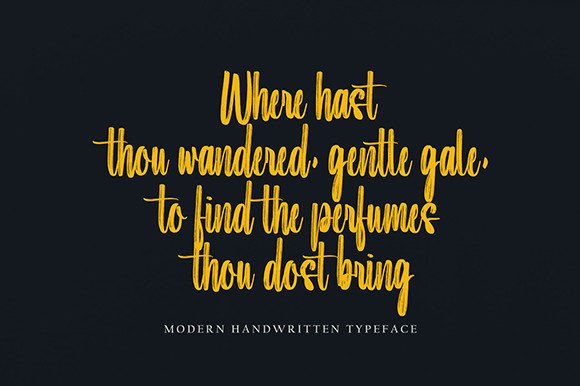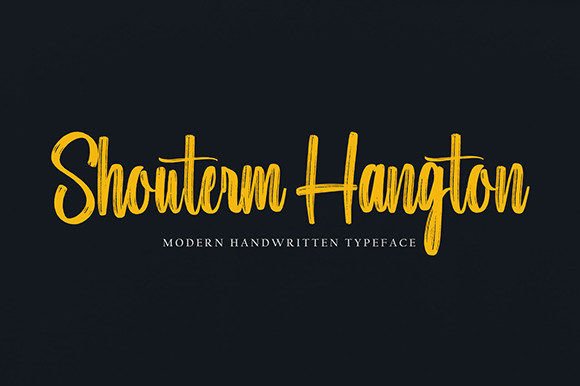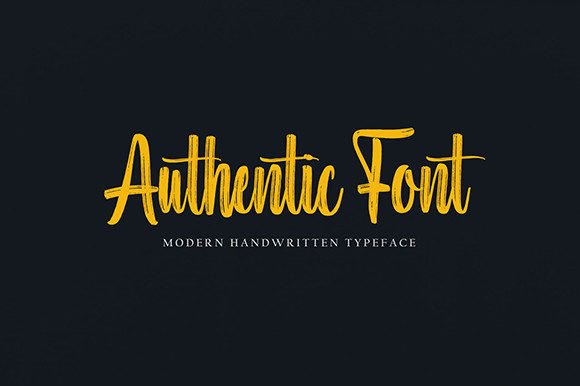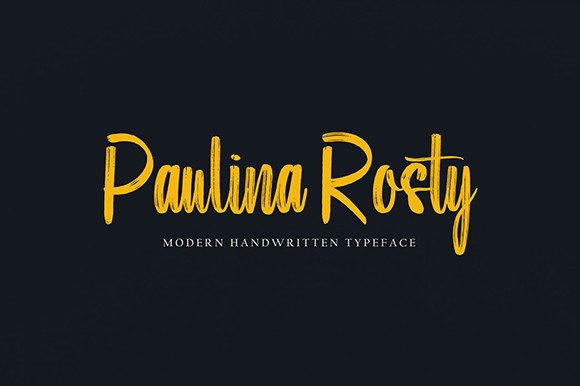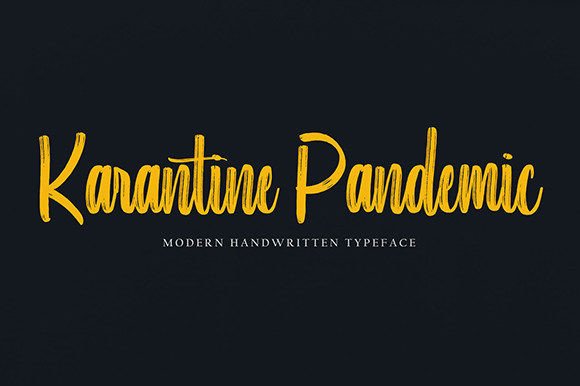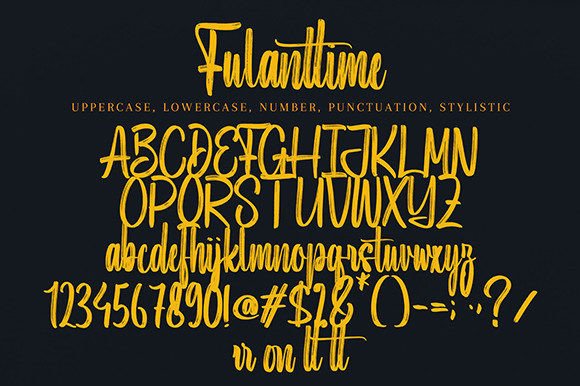
The Designer’s Delight: Exploring the Elegance of Fulanttime Font
I’ll never forget the time I was working on a fashion branding project, and my client asked me to create a logo that exuded elegance and sophistication. I spent hours scouring the internet for the perfect font, but nothing seemed quite right. That was until I stumbled upon Fulanttime Font. ✨
This stylish and incredibly elegant handwritten font has been a game-changer for my design work. Defined by smooth curves, Fulanttime Font is perfect for fashion branding or editorial designs. In this article, I’ll share my experience with this beautiful font, its features, and how to make the most of it in your designs.
An Honest Review of Fulanttime Font
• ✨ Elegant and sophisticated: Fulanttime Font is perfect for high-end fashion branding or editorial designs.
• ✅ Smooth curves: The font’s smooth curves give it a luxurious feel that’s hard to achieve with other fonts.
• 💫 Versatile: Fulanttime Font can be used for a variety of design projects, from logos to headings and even body text.
While Fulanttime Font is an excellent choice for many design projects, there are a few quirks to be aware of:
• ⚠️ Limited use for body text: While Fulanttime Font is beautiful, it’s not the most readable font for long blocks of text.
• 🤔 Limited availability: Fulanttime Font may not be as widely available as other fonts, which can make it harder to find alternatives or matching fonts.
The Designer Inspiration Behind Fulanttime Font
Fulanttime Font was designed by a talented typographer who wanted to create a font that exuded elegance and sophistication. The designer’s inspiration came from classic calligraphy and handwritten scripts, with a modern twist. The result is a font that’s both timeless and trendy, perfect for fashion branding and editorial designs.
Font Name Fulanttime Font
Author Pineungtype & Missinklab
Q: What is Fulanttime Font?
A: Fulanttime Font is a stylish and elegant handwritten font perfect for fashion branding and editorial designs.
Q: Is Fulanttime Font suitable for body text?
A: While Fulanttime Font is beautiful, it’s not the most readable font for long blocks of text. It’s best used for headings, titles, and other design elements.